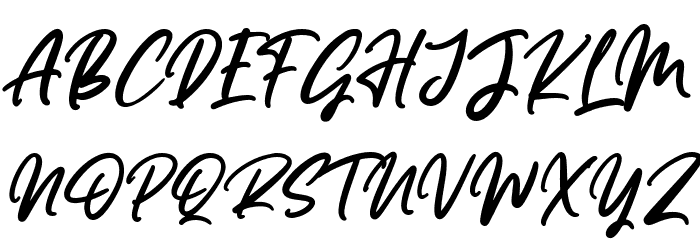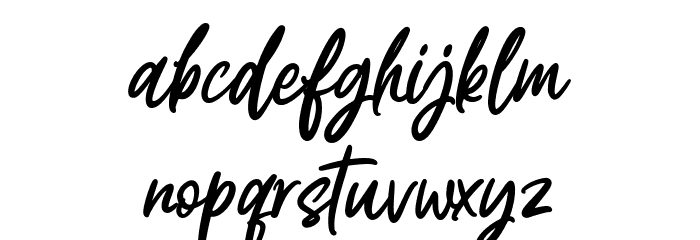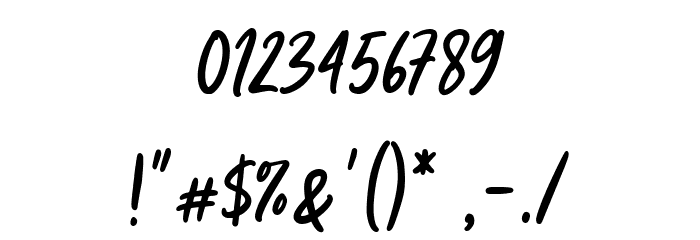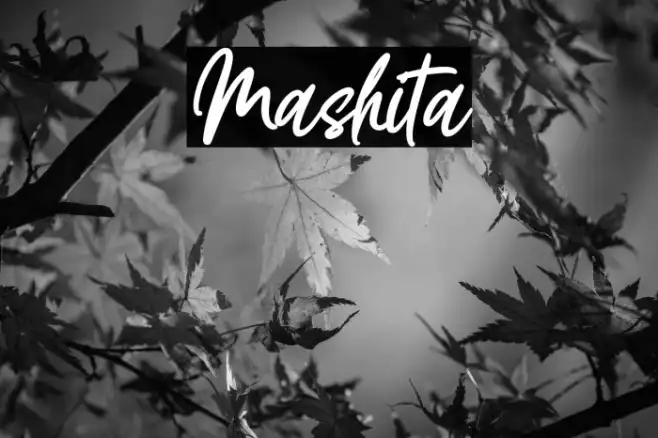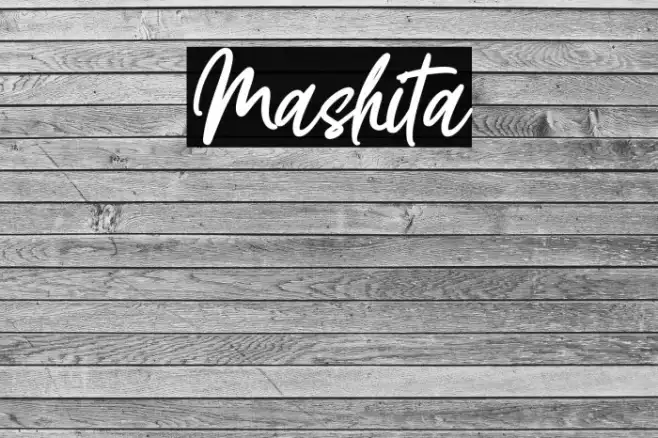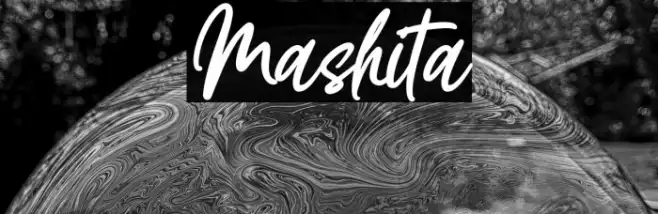
Mashita Font
This font features a bold, flowing script style that exudes elegance and dynamism. The characters are connected in a cursive manner, giving it a handwritten feel. The strokes are thick and consistent, providing a strong visual impact. The uppercase letters are slightly larger and more pronounced, while the lowercase letters maintain a smooth and cohesive flow. The numerals and special characters are designed to match the overall aesthetic, ensuring uniformity across all elements. This font is ideal for projects that require a personal touch or a sense of sophistication.
A bold, flowing script font with a handwritten feel and elegant style.
- Proposed Projects: Ideal for wedding invitations, branding, logos, and elegant packaging designs.
- Overall Style: Elegant, Handwritten
- Use Case: Logos, Invitations, Branding